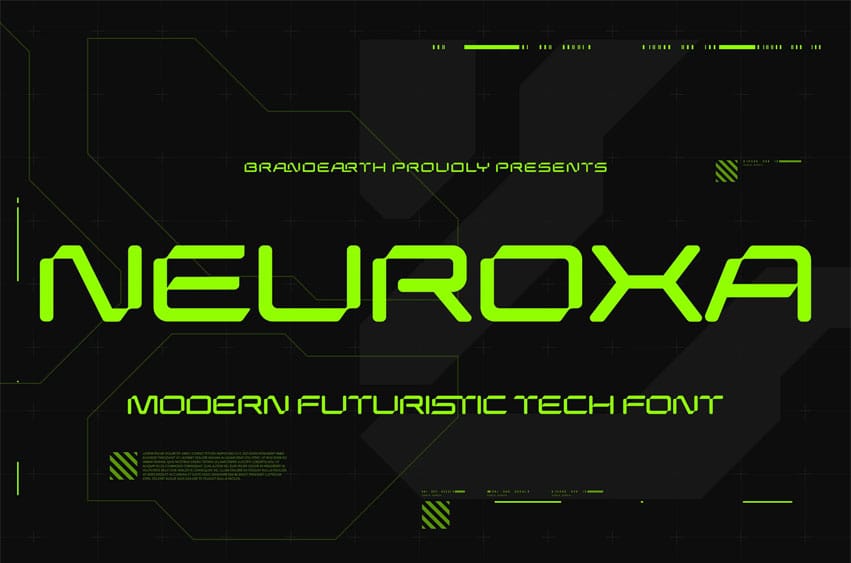
Neuroxa Font is a modular futuristic font engineered with pixel-precision for cutting-edge digital experiences. Its style is clean, tech-forward, and cybernetic, exuding a bold sense of innovation and high-tech utility. It’s a font born from code and circuitry, built for futuristic systems and next-gen brands.
This typeface carries a modular, grid-inspired structure with sharp terminals and rounded counters. Its form is geometric yet functional, balancing machine logic with visual appeal. Neuroxa’s tightly aligned spacing and square-shaped characters create a streamlined aesthetic that feels ready for interfaces, robotics, and digital media.
Perfectly suited for UI design, game HUDs, AI branding, app dashboards, sci-fi campaigns, streaming overlays, tech start-up decks, and NFT or Web3 presentations, Neuroxa transforms modern content into future-ready visual systems.
Suitable For: sci-fi projects, AI platforms, futuristic branding, UI/UX systems, dashboards, tech startups, game overlays, data interfaces, NFT presentations, pitch decks, robotic visuals, neon cyberpunk branding, app design, streaming screens, and modern technology publications.